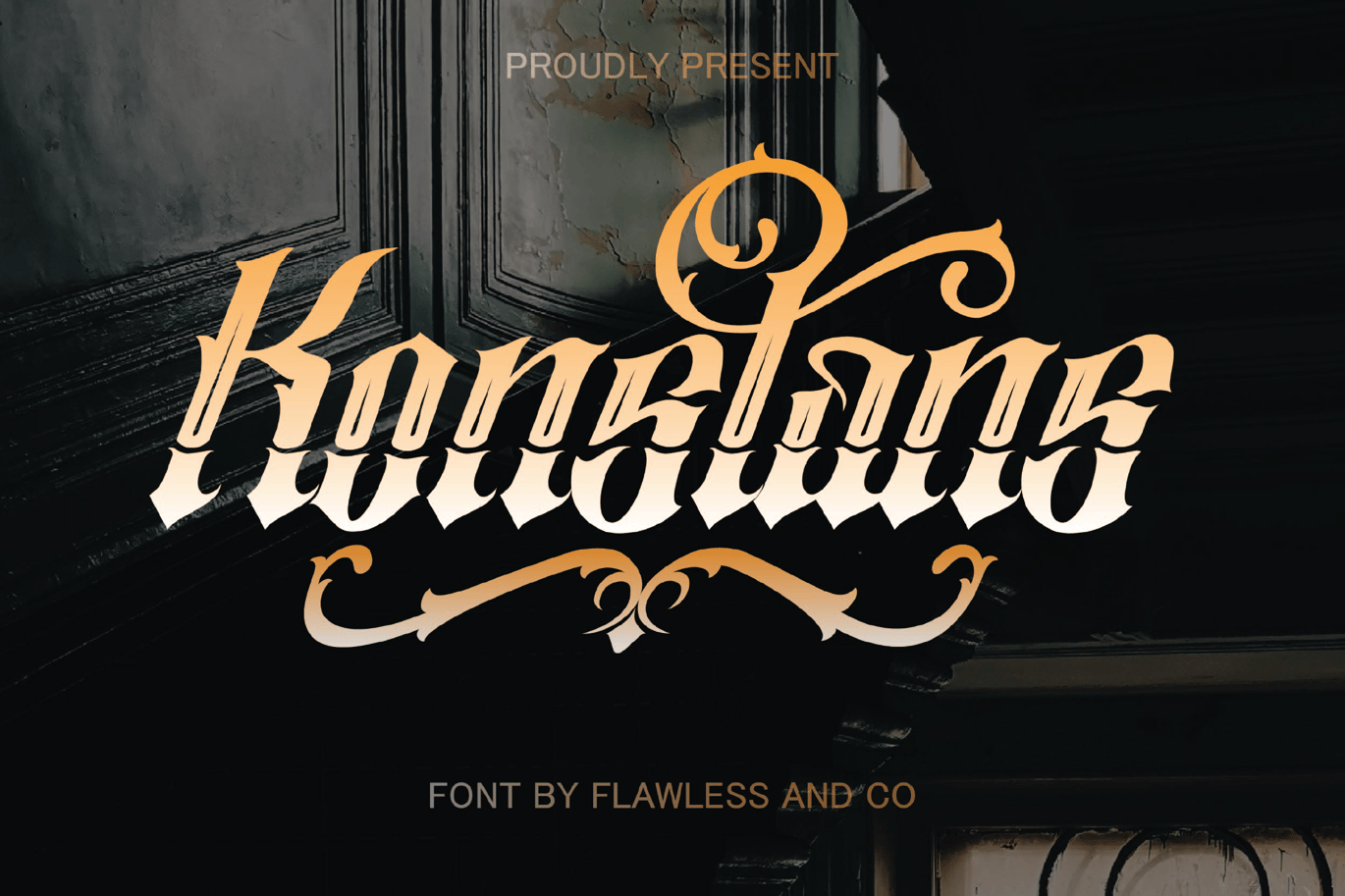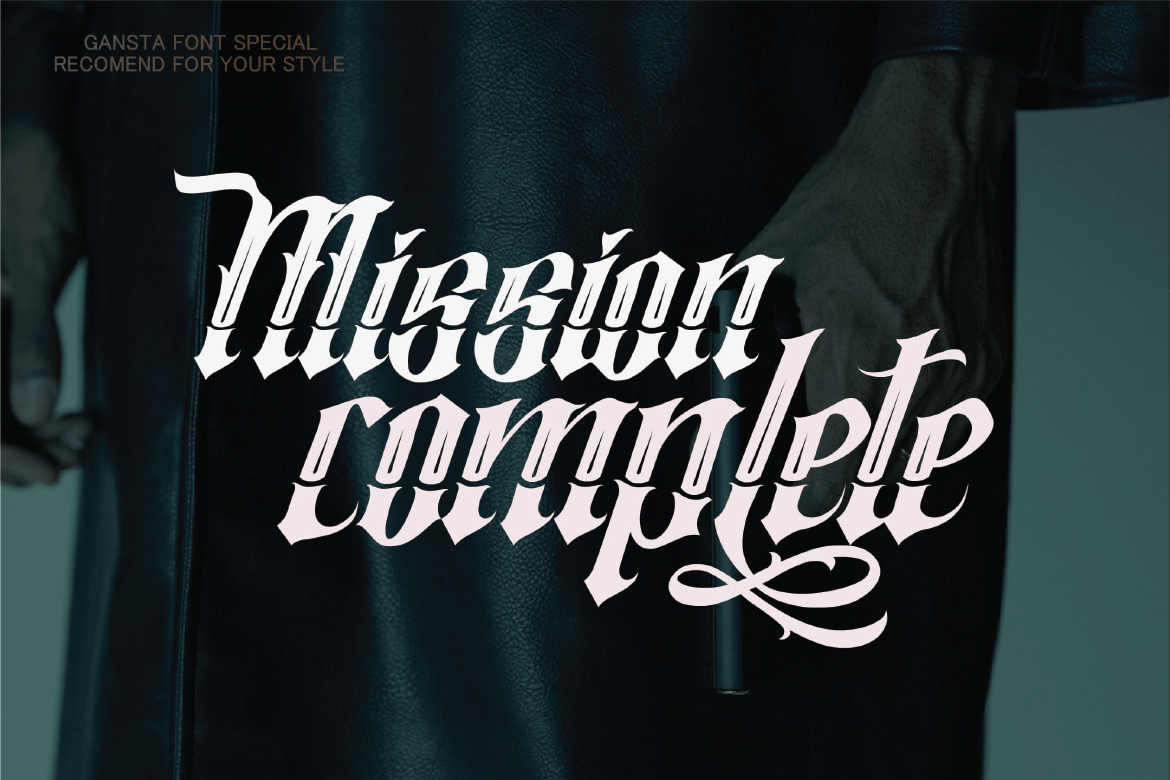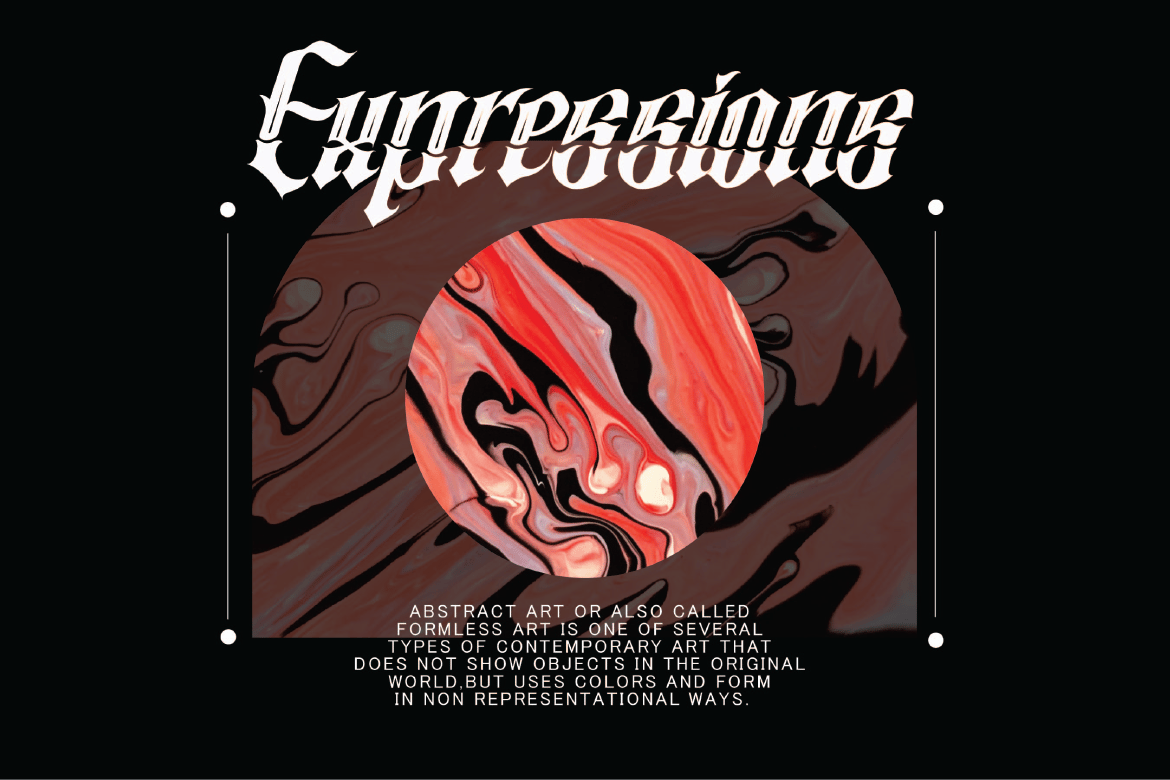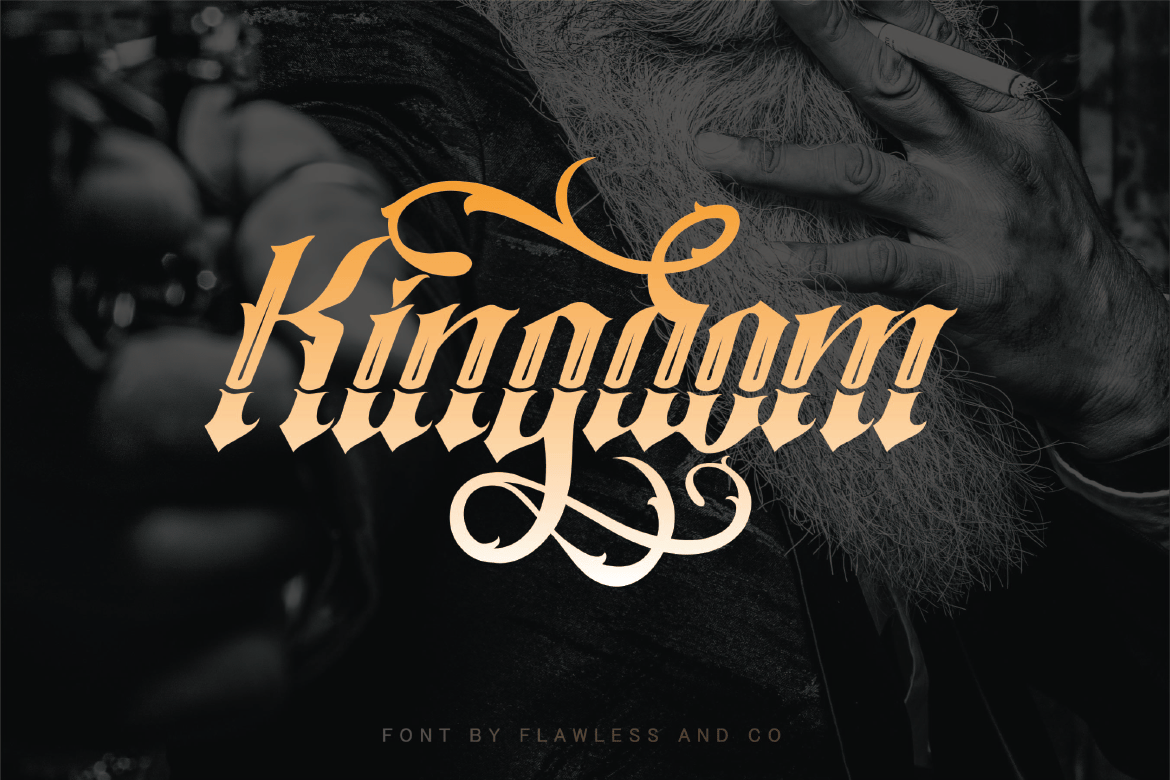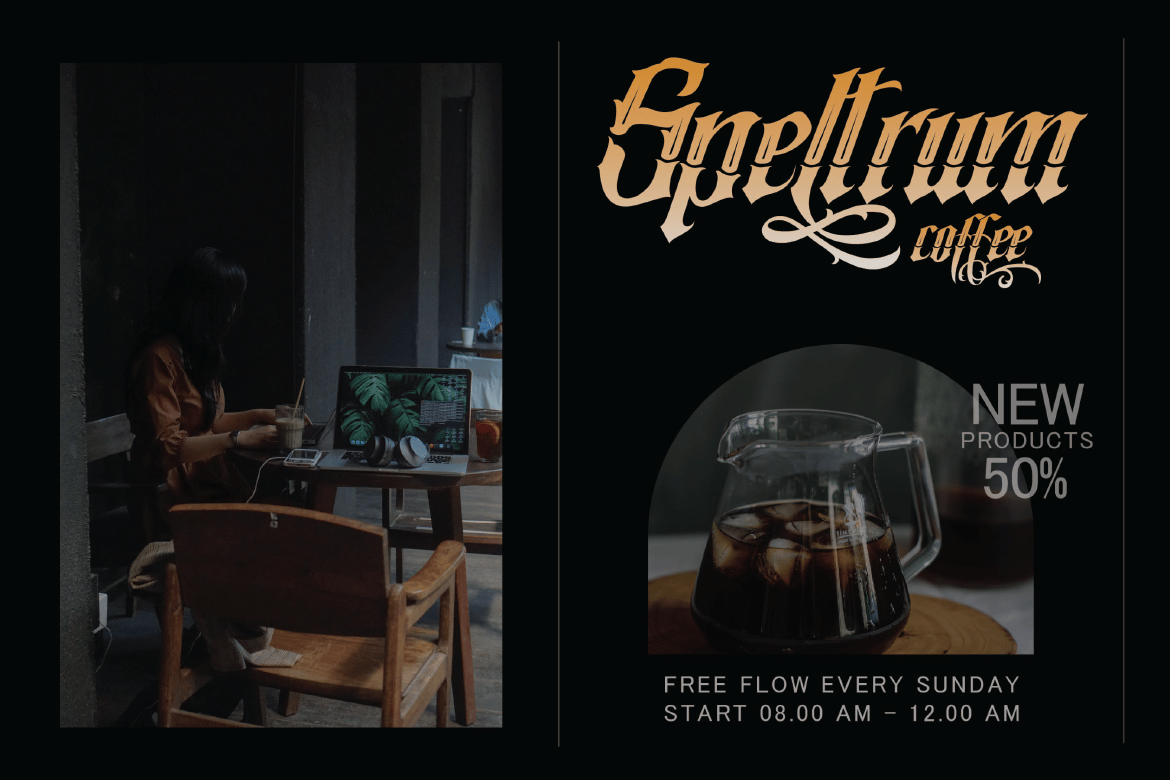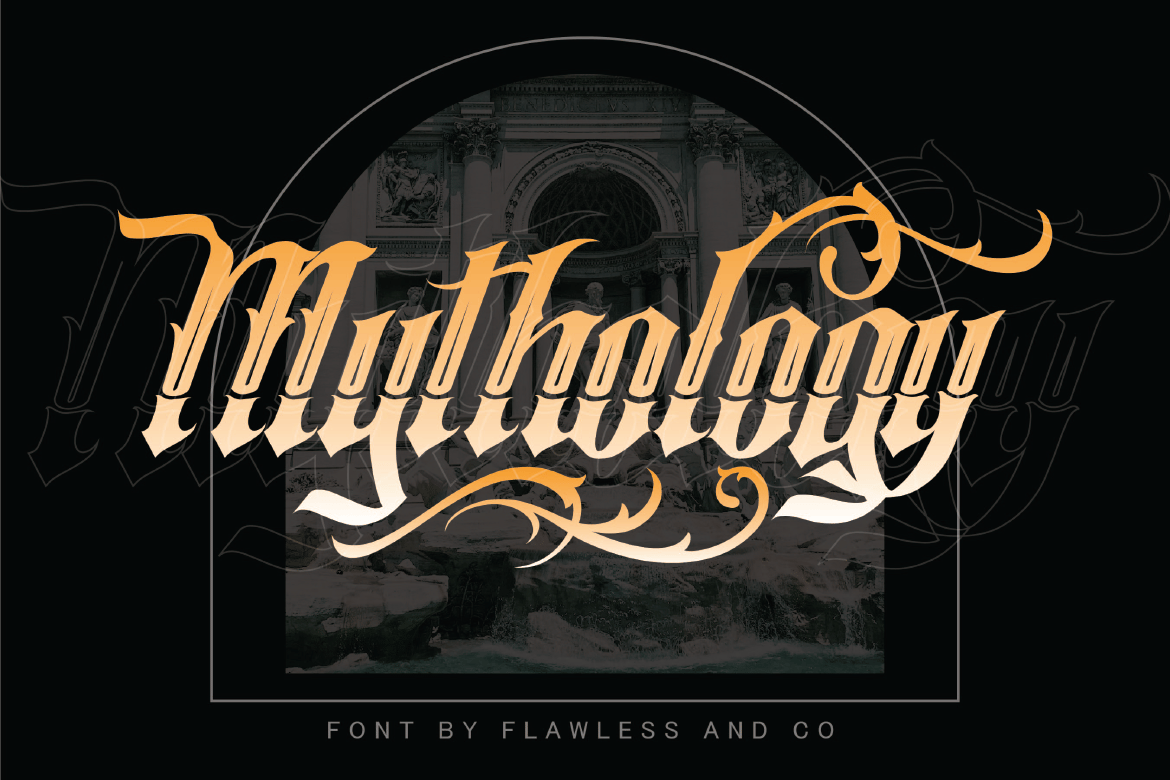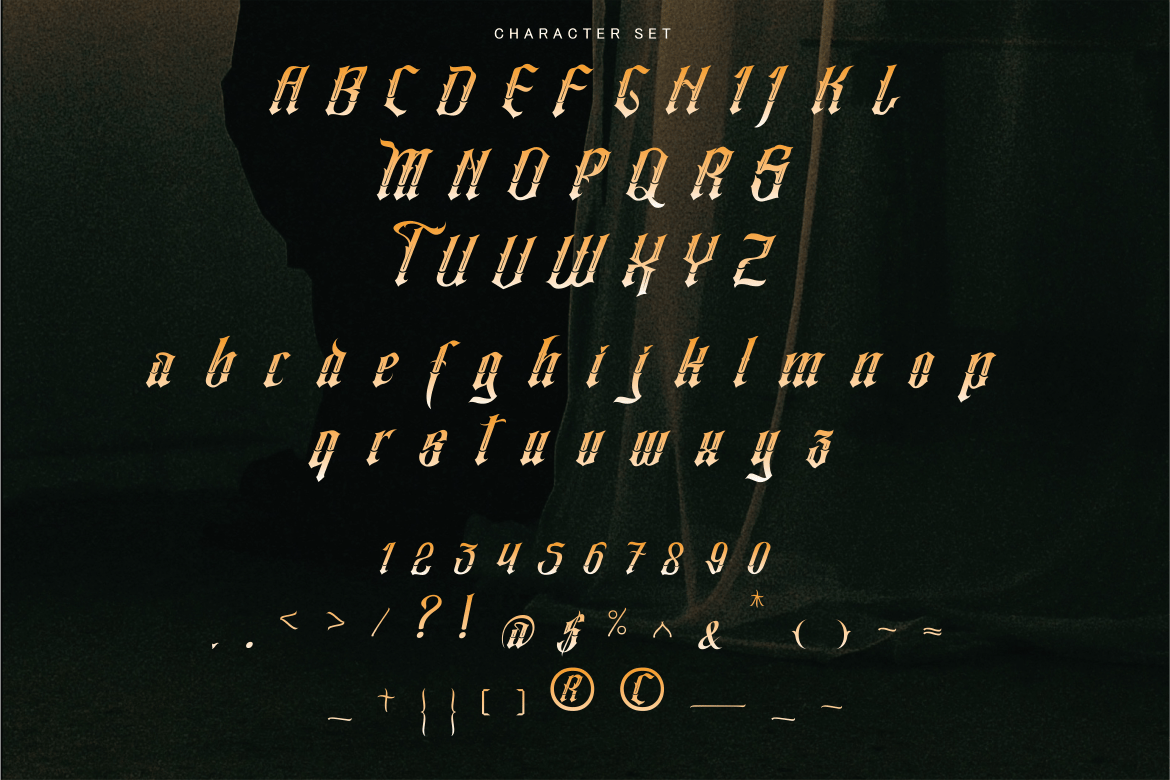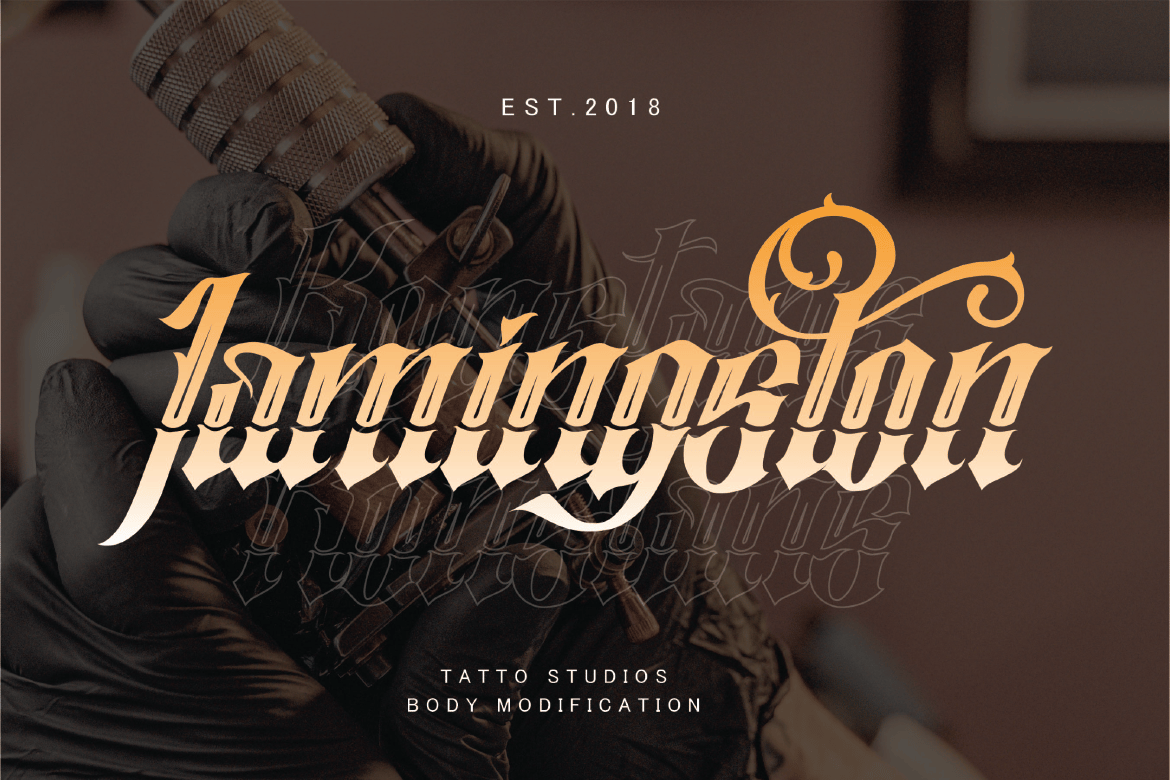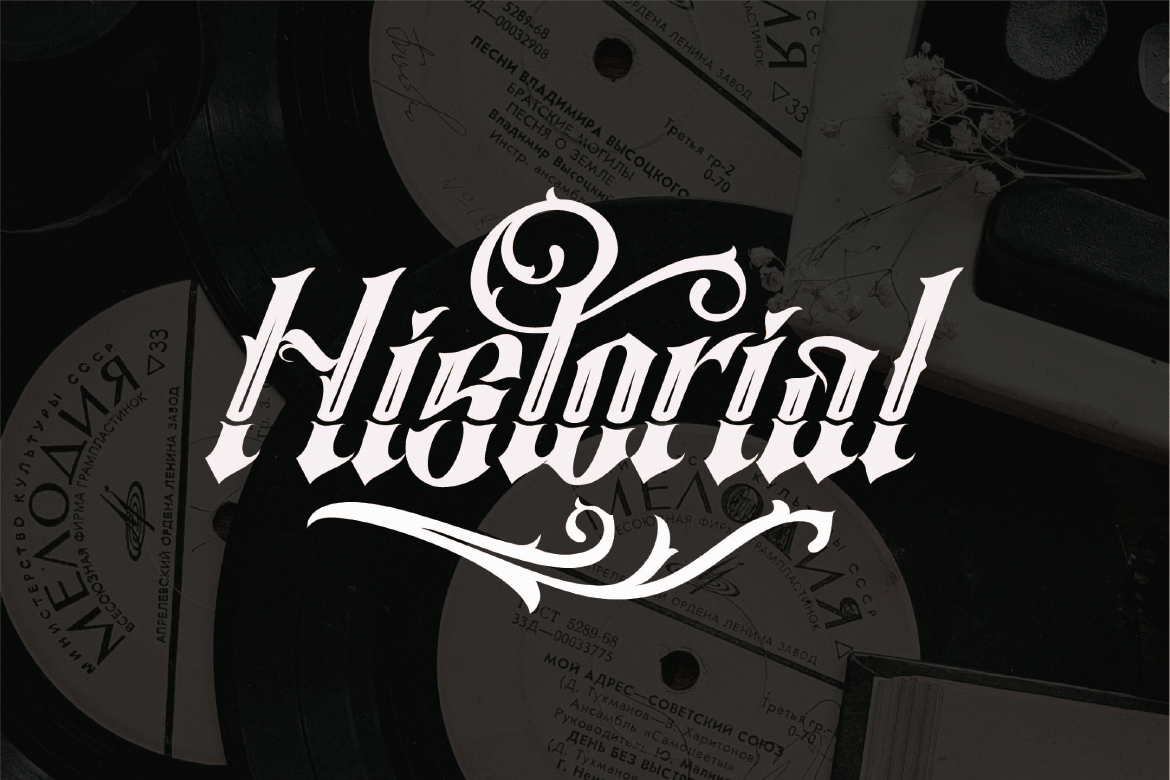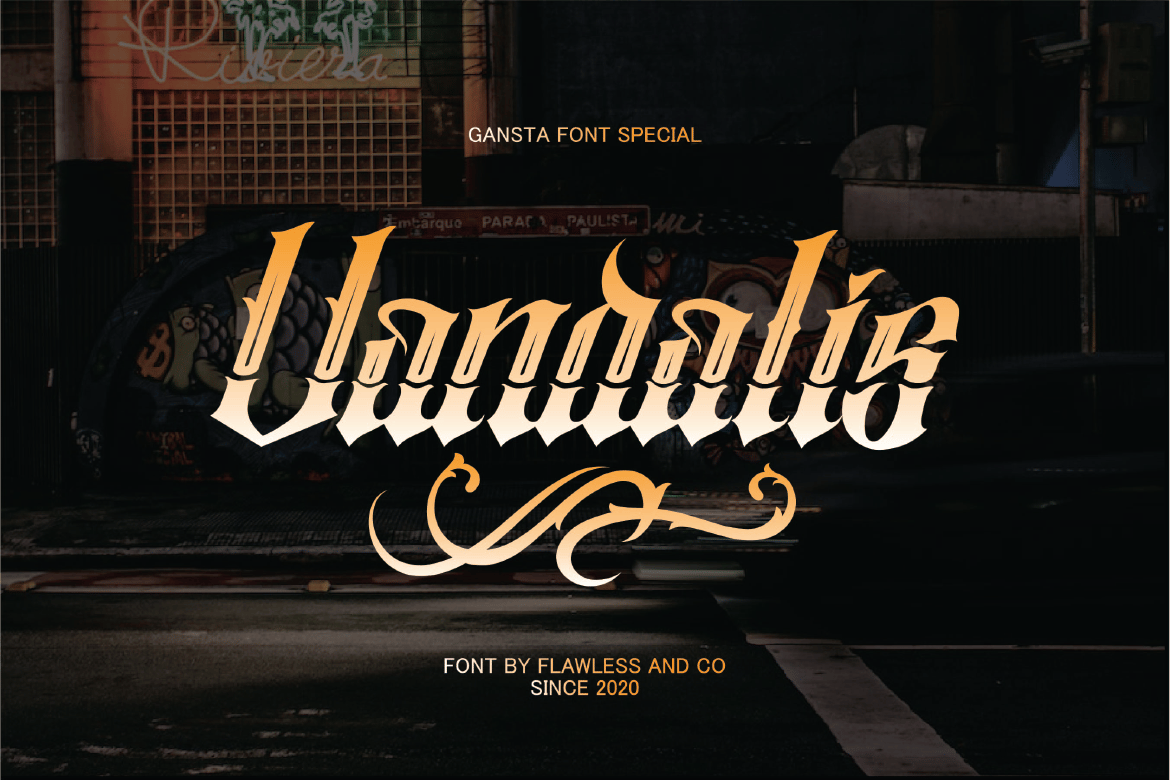
Konstans – Blackletter Tattoo Font
introducing our new “Konstan” Modern Blackletter Font with Elegant Style is perfect for your design
Alternate Character